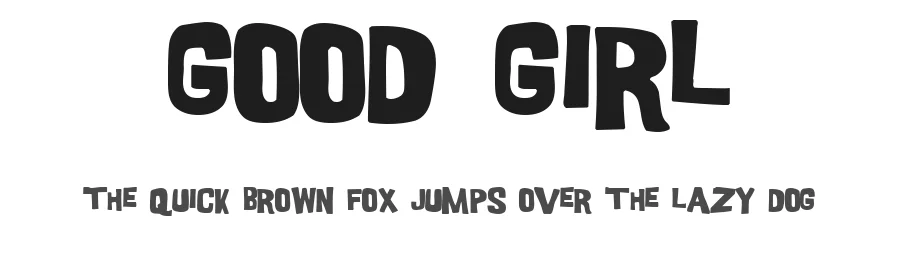
About Creamy Soup Font
Creamy Soup Font is a decorative font that shines as a display or heading face. Pair it with a clean sans-serif or serif font for body text β the contrast creates a clear hierarchy while the two styles stay balanced and easy to read.
Creamy Soup Font